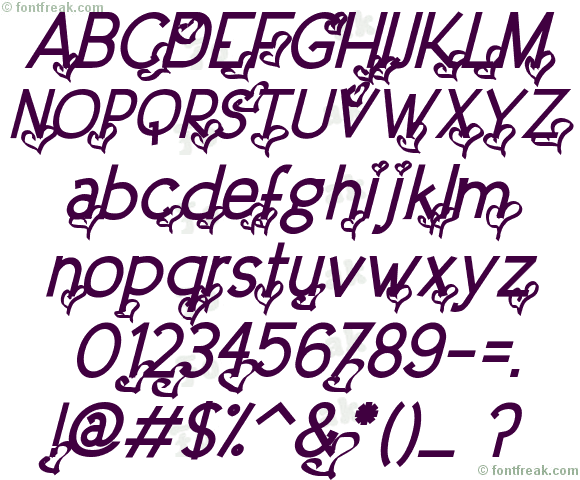
Dream Love Valentine Italic
About Dream Love Valentine Italic
The Dream Love Valentine Italic font, designed by Typeface Leone, is a captivating display font that beautifully embodies the themes of romance and whimsy. This italicized typeface features a unique blend of decorative elements and elegant curves that evoke feelings of warmth and affection. Its stroke weight varies, providing a delicate contrast that enhances the visual appeal while maintaining legibility. The spacing is thoughtfully designed to allow the letters to flow seamlessly, making it ideal for expressive typography.
This font is particularly well-suited for a variety of romantic and festive applications. It shines in wedding invitations, where its charming aesthetic can set the tone for a joyful celebration. Additionally, it works wonderfully for Valentine's Day cards, conveying heartfelt messages with flair. Movie posters targeting romantic genres can utilize this font to attract attention and evoke emotion, while restaurant menus, especially those focusing on intimate dining experiences, can benefit from its inviting style. Graphic designers and small business owners looking to create a memorable brand identity will find this typeface invaluable for their projects.
The target audience for the Dream Love Valentine Italic font includes graphic designers, content creators, and small business owners seeking to add a touch of charm to their work. With its distinctive character and romantic flair, this font serves as an excellent choice for anyone looking to evoke a sense of love and joy in their designs.
In a crowded market of fonts, the Dream Love Valentine Italic font free download stands out due to its unique combination of elegance and playfulness. Its ability to capture the essence of love while remaining versatile for various applications makes it an exceptional choice for creative projects that aim to leave a lasting impression.